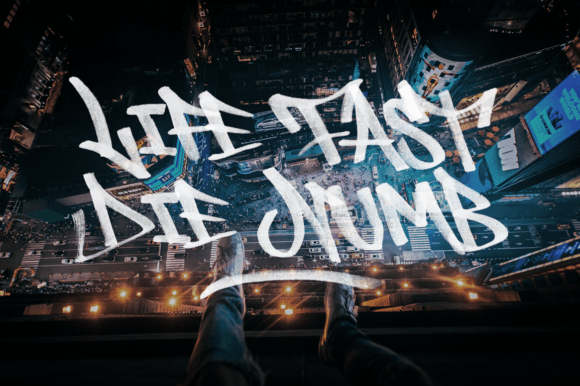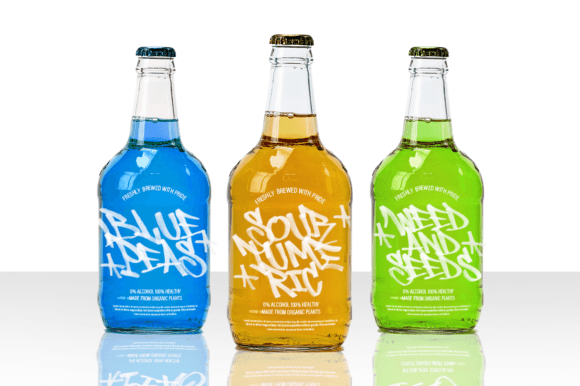
Marker Tags Font
Created with real markers, the images were scanned to select the best letters for the fonts. This font is ideal for those needing a realistic graffiti or grunge style, as it blends seamlessly with real elements when using the SVG fonts.
As these are realistic graffiti fonts, adjustments to kerning and spacing may be necessary.